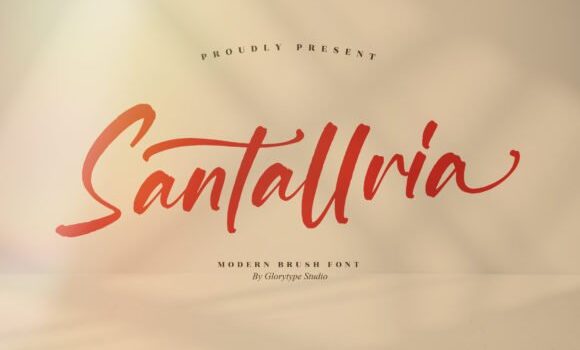
santallria
Santallria Font – Free Download Introduction to Santallria Font Santallria is a beautiful script font, suitable for logos, branding projects, homeware designs, product packaging, mugs, quotes, posters, and anything that may require a delicate taste. 📸 Preview Gallery 6 images